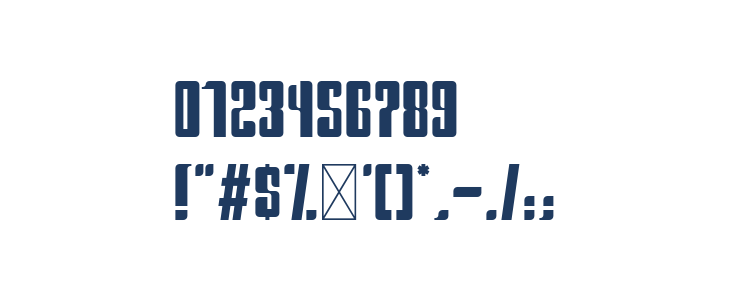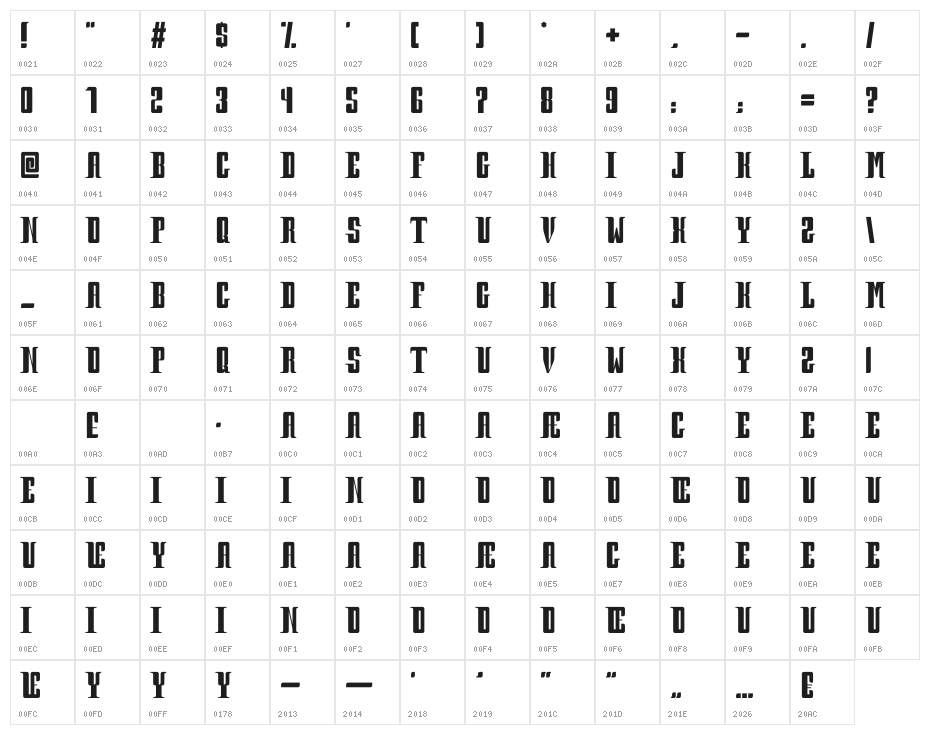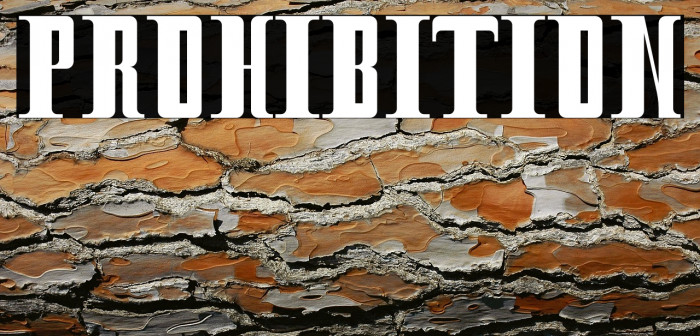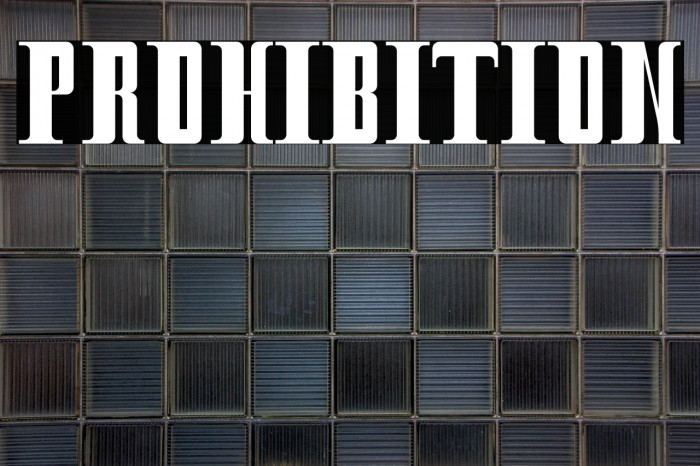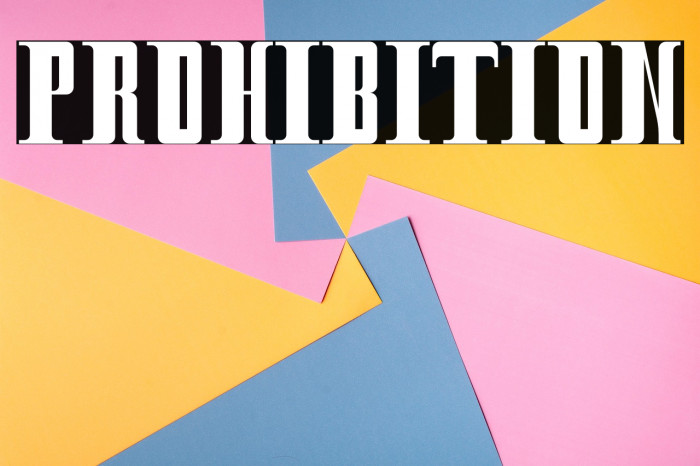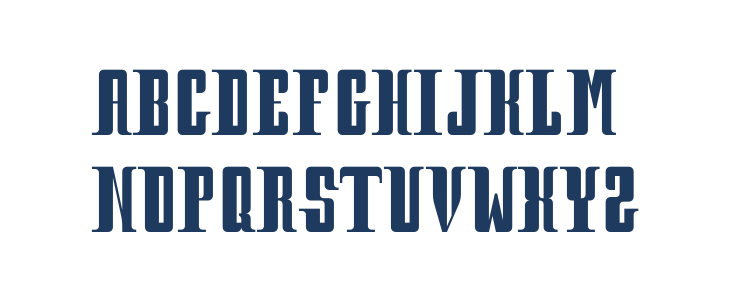
Prohibition Font
Prohibition Description
This font features a bold, decorative style with strong vertical lines and sharp serifs, reminiscent of early 20th-century design. The uppercase letters are tall and commanding, with a slight inward curve on the vertical strokes that adds a touch of elegance. The lowercase letters maintain the same boldness, ensuring consistency across text. Numbers are equally robust, with a uniform height that aligns with the uppercase letters. Special characters are distinct and maintain the overall aesthetic, making them suitable for a variety of uses. The font's design is both eye-catching and versatile, ideal for creating a vintage or retro feel.